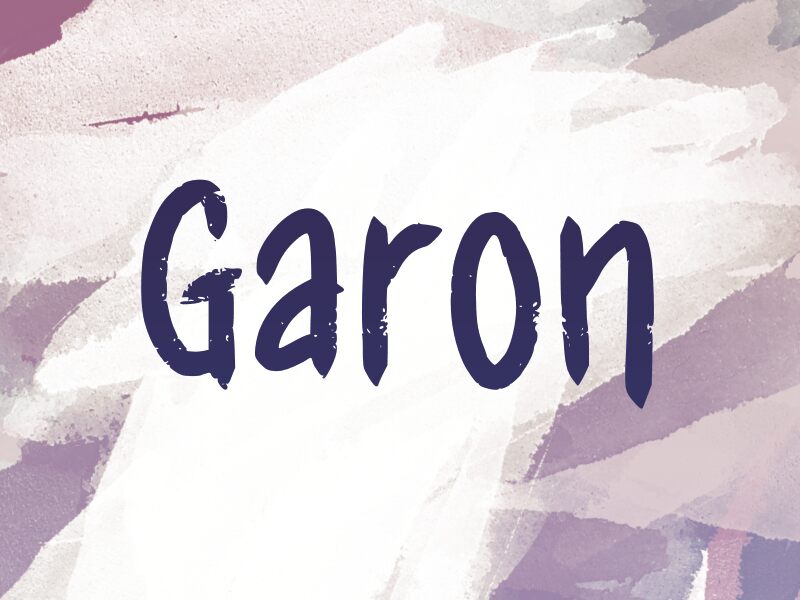
Garon
Garon by wep is a captivating brush font that exudes a raw, organic charm. Its bold, dynamic strokes and irregular edges create a sense of movement and energy, evoking a handcrafted, artisanal aesthetic. The font's condensed width lends it a distinctive, eye-catching presence, making it an excellent choice for attention-grabbing headlines, logotypes, and branding elements.
Garon's versatility extends beyond its stylistic appeal, making it a versatile option for various design applications. Its bold and expressive nature makes it well-suited for editorial layouts, promotional materials, and packaging designs, where it can effectively convey a sense of authenticity and creativity. Additionally, the font's condensed form allows for efficient utilization of limited space, making it a practical choice for web and mobile design projects.